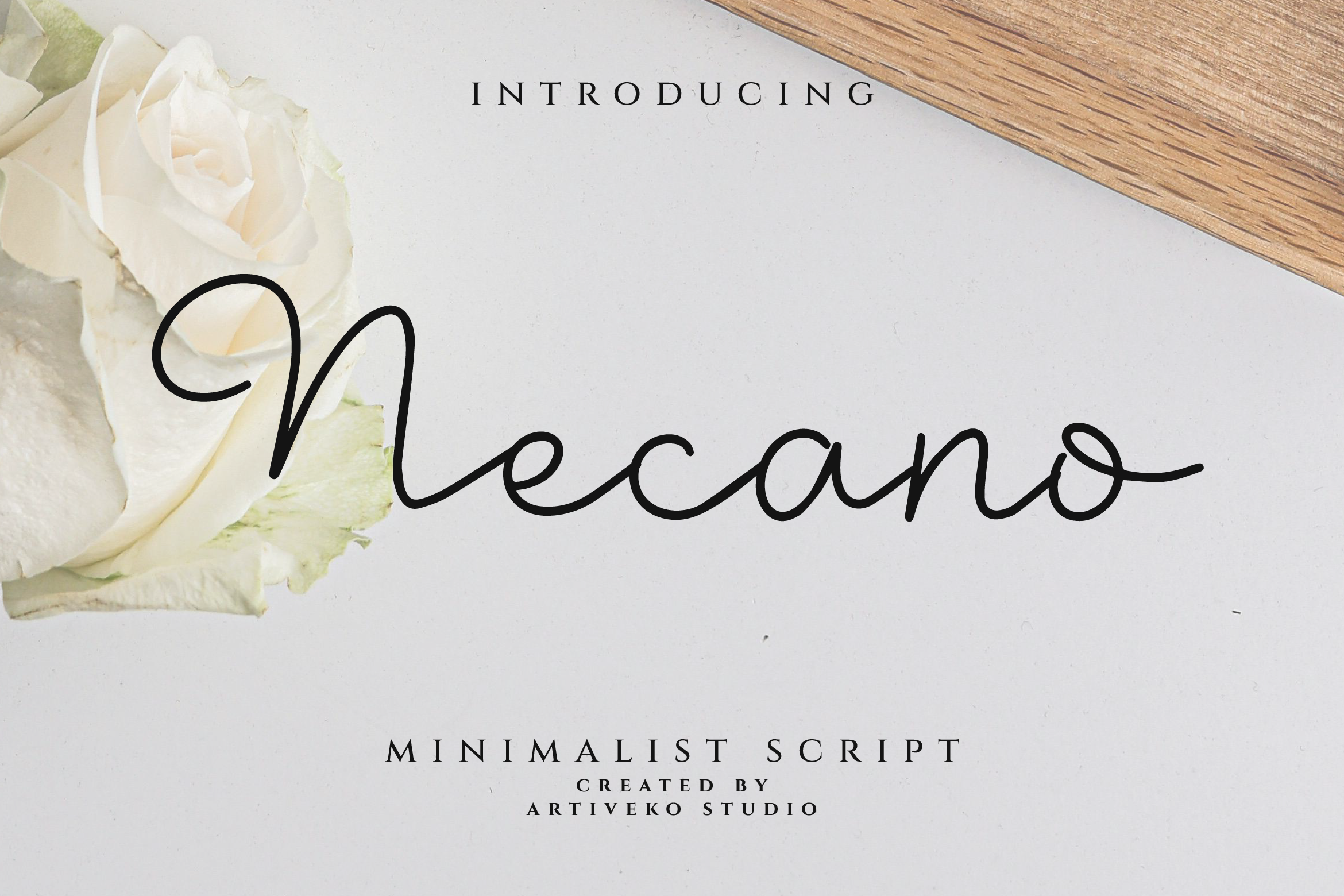
- Necano Beautiful Script Font
Necano is a beautifully crafted modern script font that combines fluid strokes with a graceful, handwritten charm. Its smooth curves and natural rhythm make it perfect for branding, wedding invitations, social media graphics, packaging, and any project that needs a personal yet sophisticated touch.
Designed for versatility, Necano includes uppercase and lowercase letters, numerals, punctuation, multilingual support, and a variety of ligatures and stylistic alternates to help you create custom, expressive typography.
Whether you’re designing a romantic logo, chic stationery, or stylish digital content, Necano brings warmth and elegance to every letter. Its balance of beauty and readability ensures that your designs always feel polished and professional.
Add a handwritten signature of style with Necano — the script font that speaks elegance and modernity.